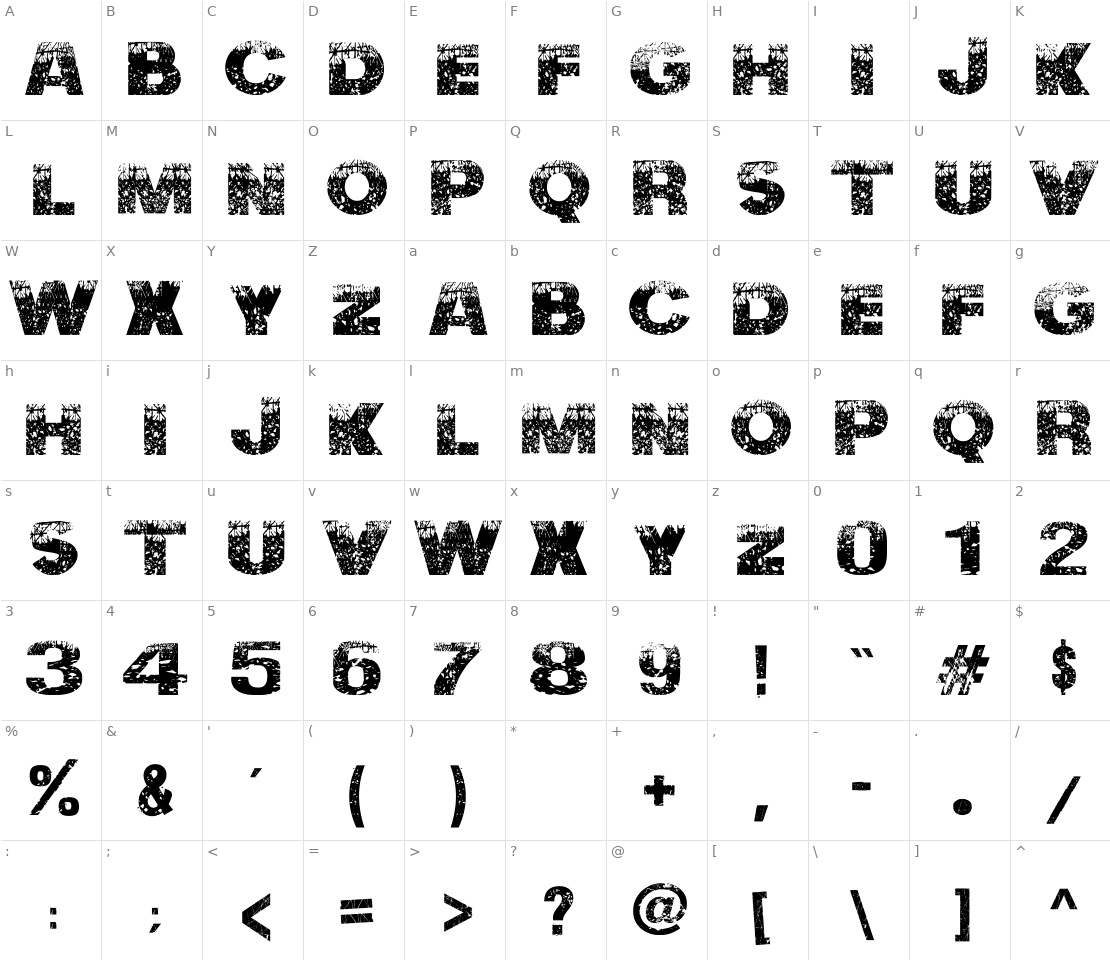
Nuclear Accident
Nuclear Accident is a heavy, textured uppercase face from Galdino Otten that looks like it survived a meltdown. The bold letterforms are visibly degraded, with chunks missing and rough, corroded edges that give everything a post-industrial, hazmat-zone feel. Built for headlines and posters where you want type that looks physically damaged, not just stylistically rough.